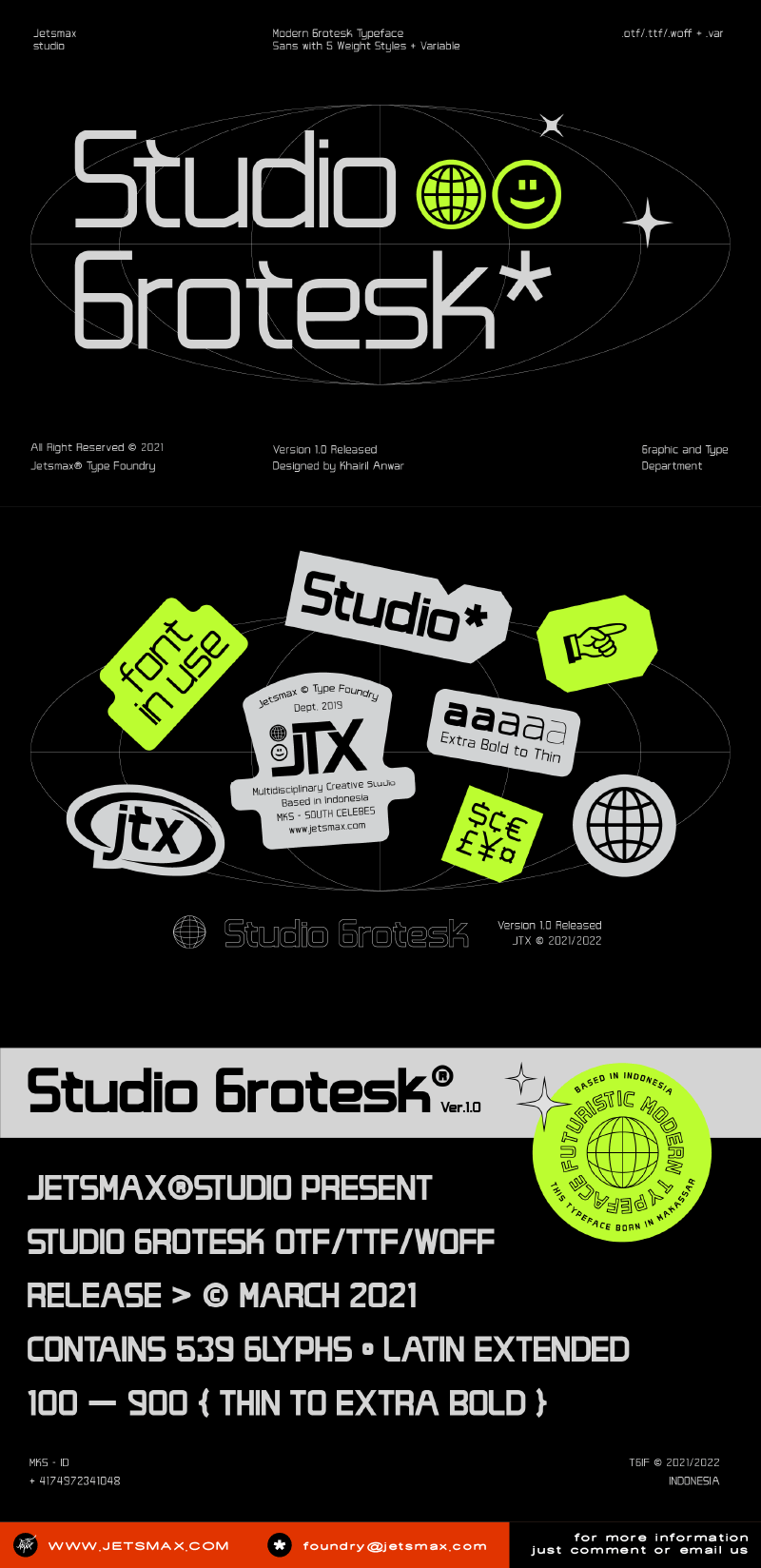
Studio Grotesk is a modern sans typeface with a futuristic touch. This multi-purpose typeface will grab the reader\�s attention with its stylish and neat design. With over 500 Glyphs, five styles, and a wide range of weights it\�s a timeless workhorse for many possible applications from branding to editorial. By installing or using this font, you are agreeing to the Product Usage Agreement: � This is a demo version (ttf files only) and free for personal use. � Here is the link to purchase the full version and commercial license: Studio Grotesk � Jetsmax Studio � For Corporate use, you have to purchase a Corporate license � If you need a custom license please contact us at foundry@jetsmax.com � Any donations are very appreciated. Paypal account for donation: https://paypal.me/KhairilAnwar Happy Creation! ���������������� FOR SOME FREEBIES CHECK OUT >>> www.jetsmax.com ���������������� |